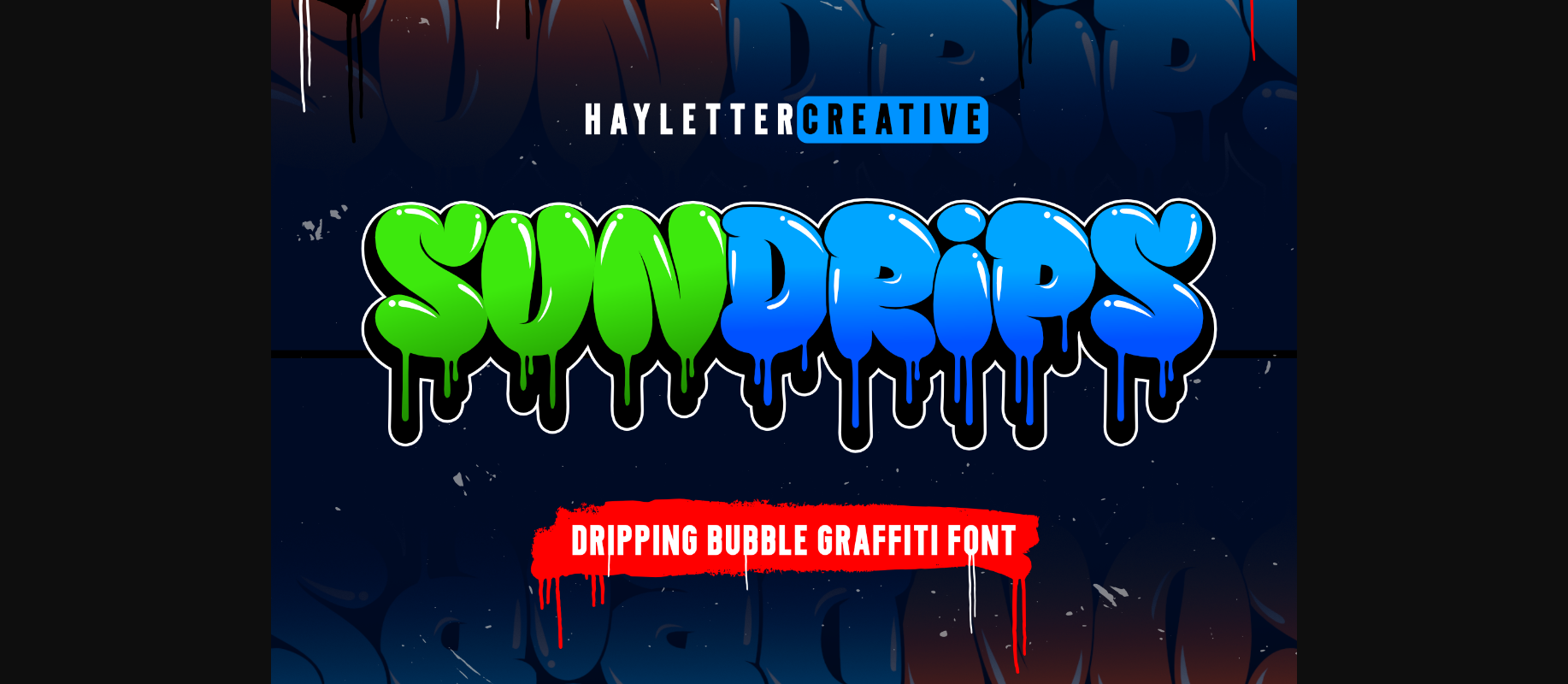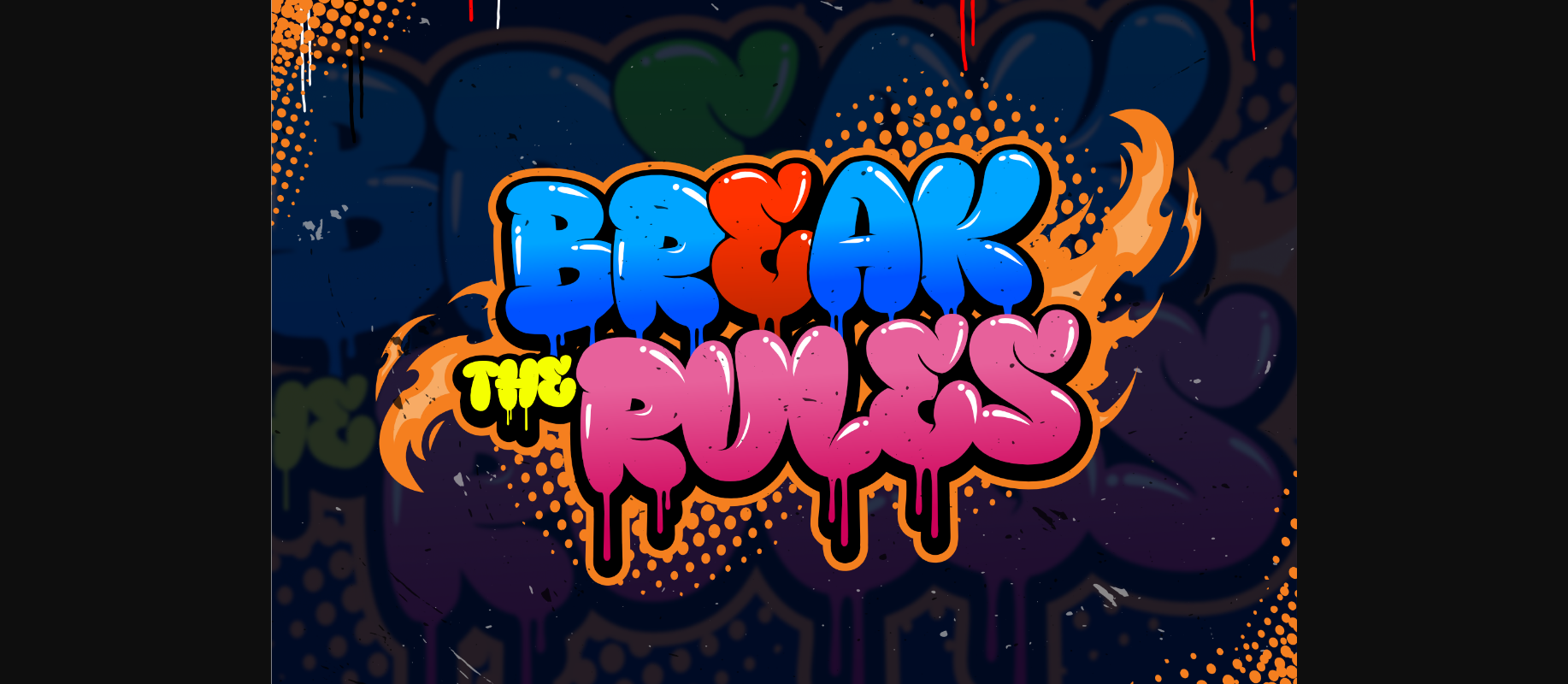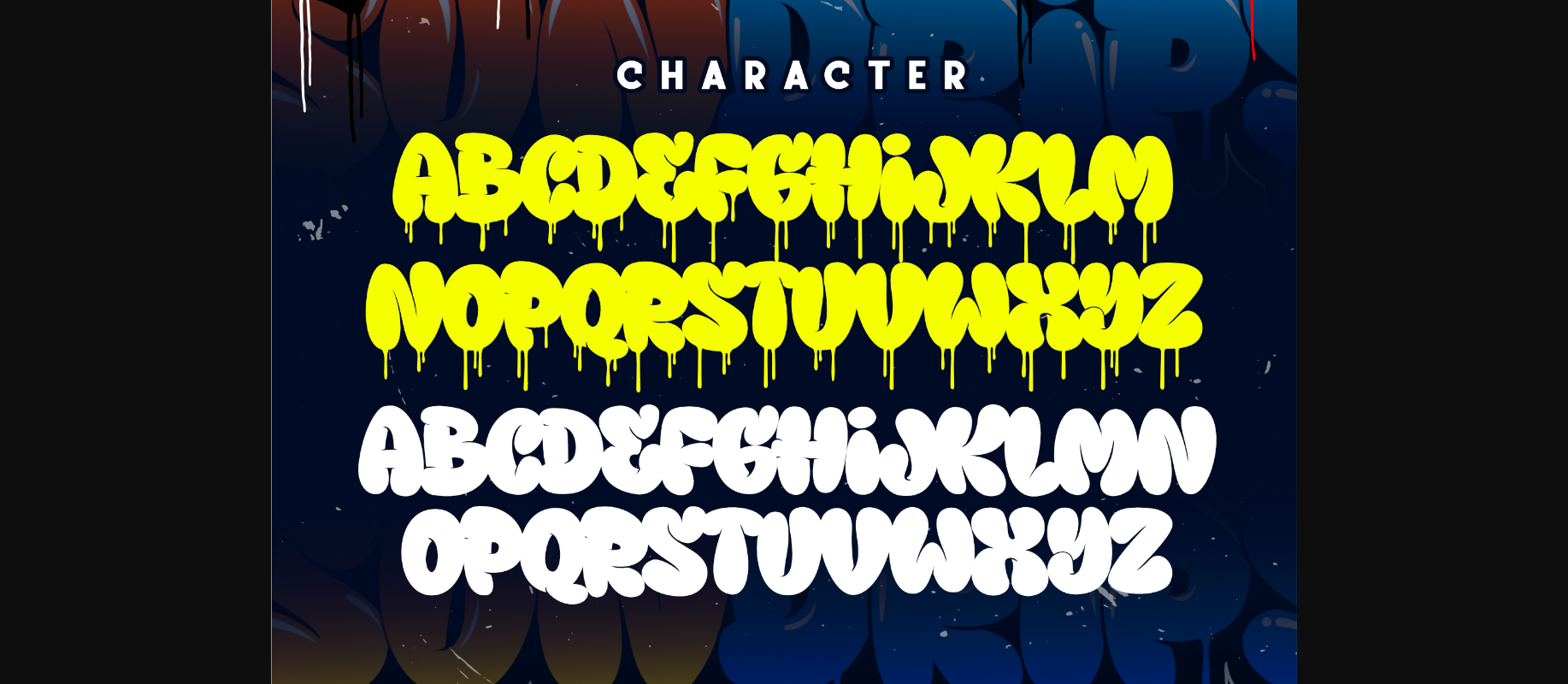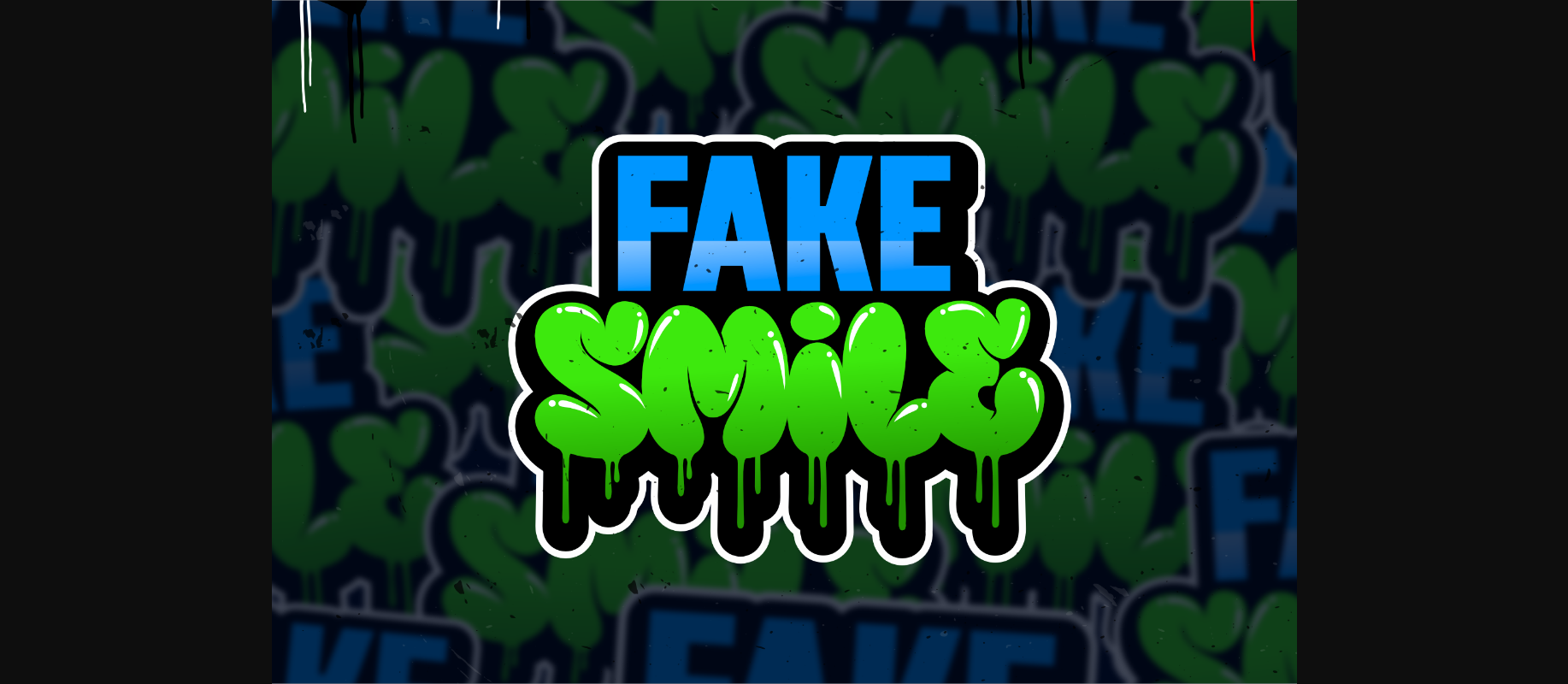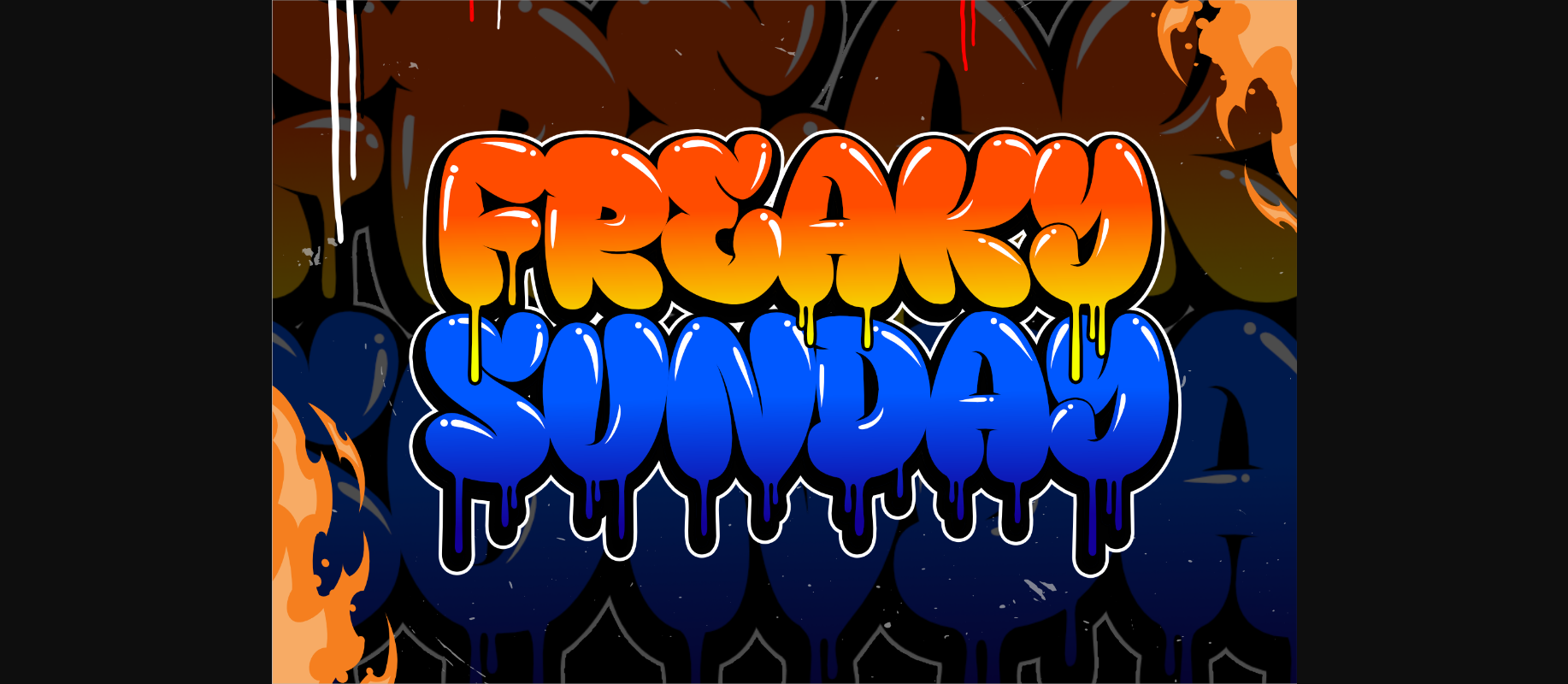
Sundrips Font
About Sundrips Font
Sundrips is a cool street styled display font, inspired by the graffiti art. No matter the topic, this font will be an incredible asset to your fonts’ library, as it has the potential to elevate any creation.